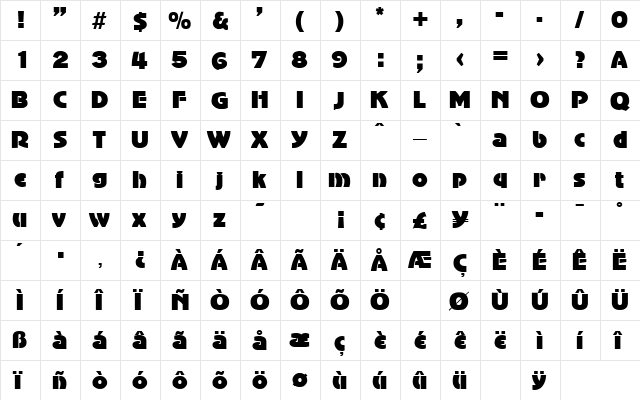
AdvertisersGothic DB Regular
Design Context for AdvertisersGothic DB Typeface
AdvertisersGothic DB takes a clean, functional approach — its unadorned letterforms prioritise legibility and work reliably across screen and print environments.
Font Pairing: Works well alongside a characterful serif or display font that can carry the expressive load while AdvertisersGothic DB handles the functional copy.
Pro Tip: Use AdvertisersGothic DB for UI labels, navigation, and short-form body copy where clean legibility is the priority.